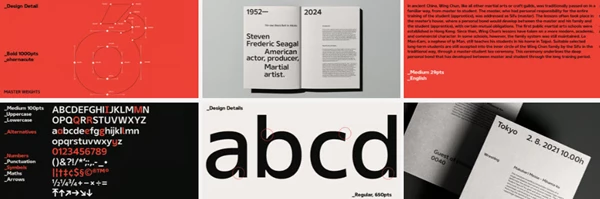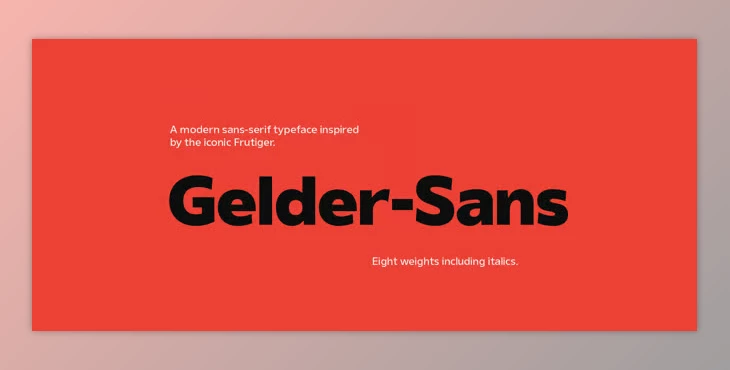
Gelder Sans is a modern sans-serif font inspired by the beloved Frutiger typeface. This modern take on a classic is also a tribute to family roots, as the designer's grandparents were the Gelders, and a hint of his ancestry is of Dutch descent. Gelder Sans is a seamless blend of grotesque and humanist sans serif designs, imbued with human qualities like legibility and friendliness through its organic shapes, open apertures, and harmonious x-height and stroke widths. A beautifully constructed font family, Gelder Sans is perfect for both print and digital creations.
- Over 1000 characters available for professional typographic use.
- Eight weights and corresponding italics are useful for virtually any design request.
- Ten sets of figures are paired with alternative letters (I, M, Q, R, a, e, g, l, y).
- Also contains arrows and ligatures (with small caps) for even more options.
- Offers Western, South, and Central European language support alongside Vietnamese.
- Gelder Sans is a clear choice for any designer looking for a professional typeface to add modern charm to their project.